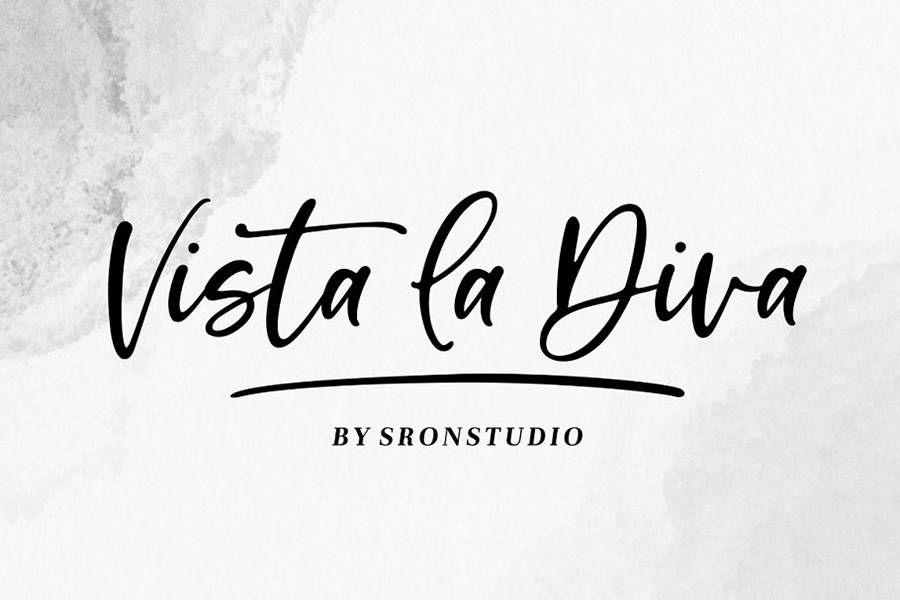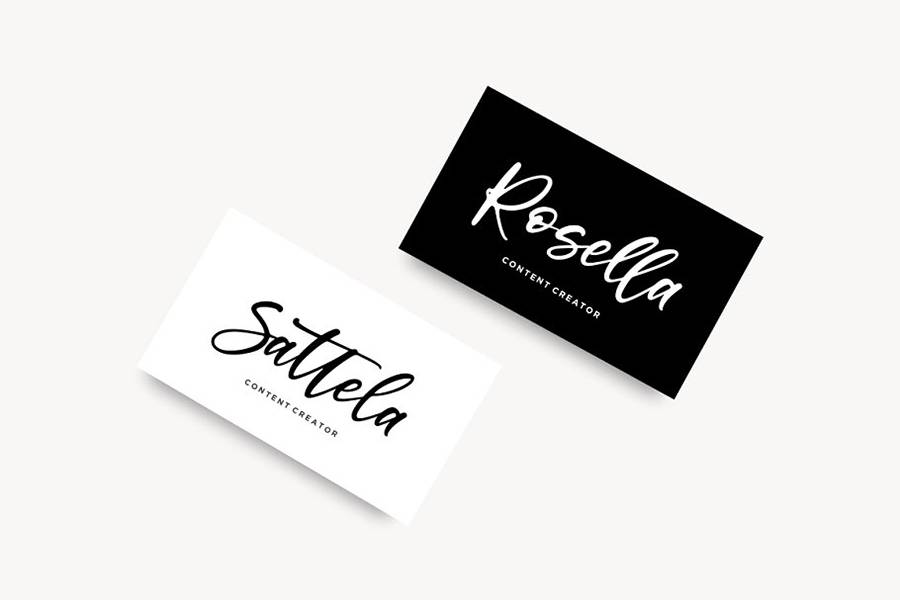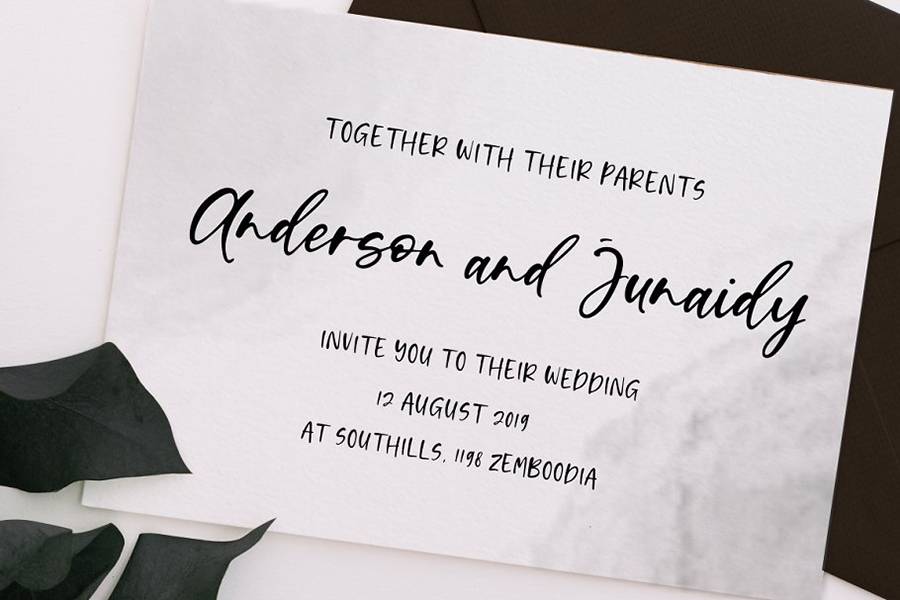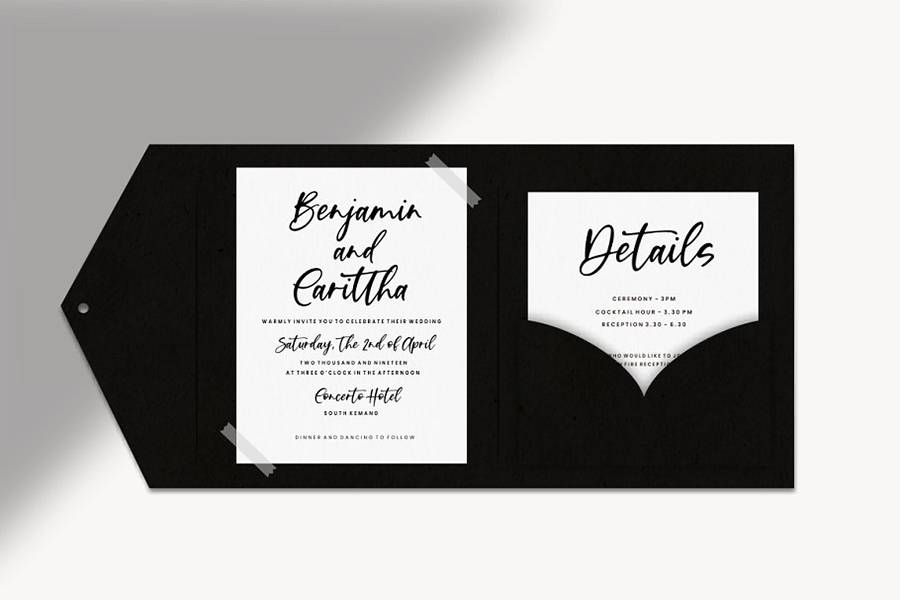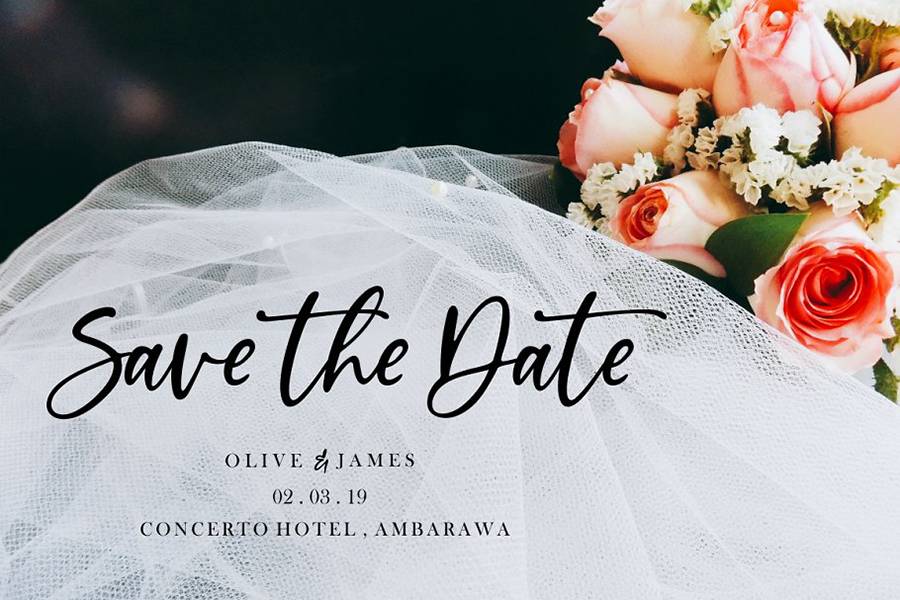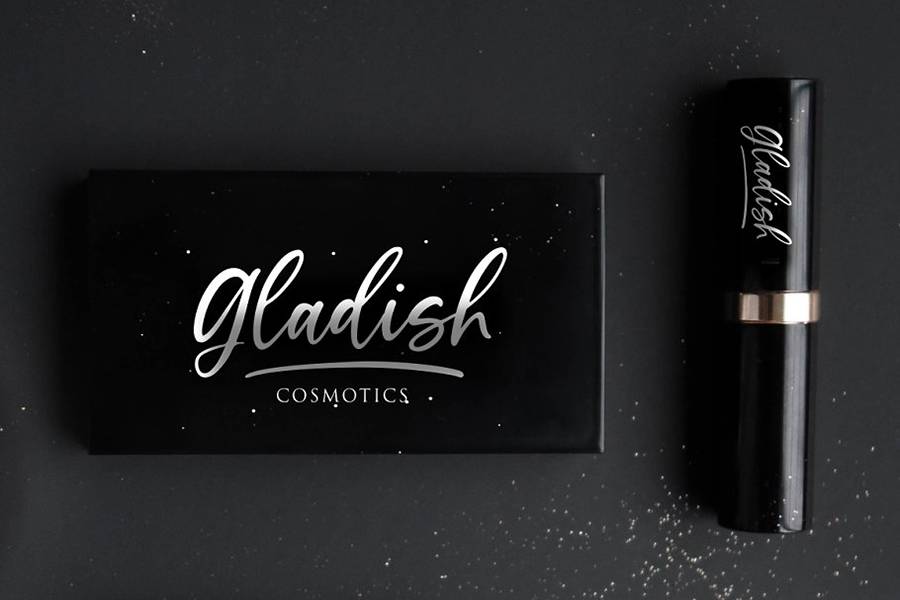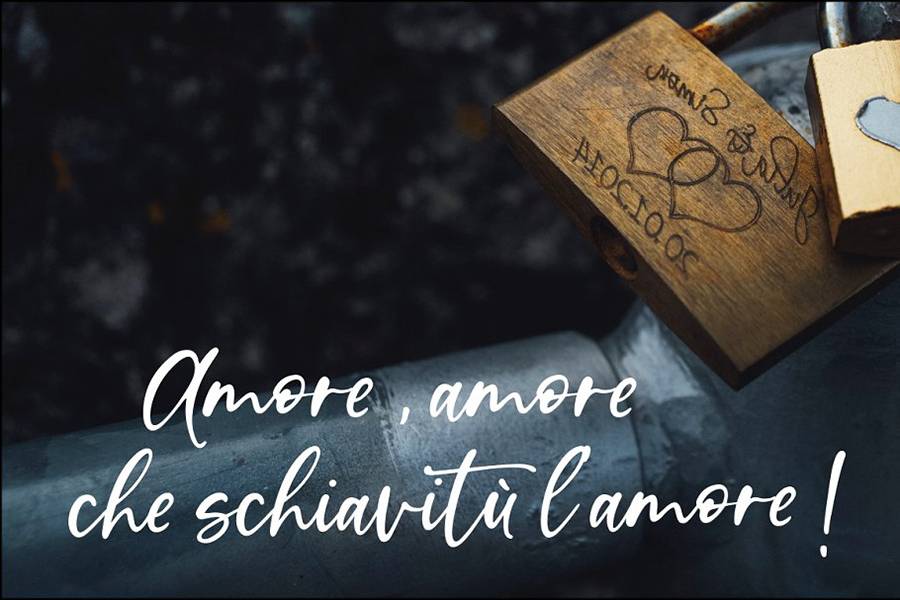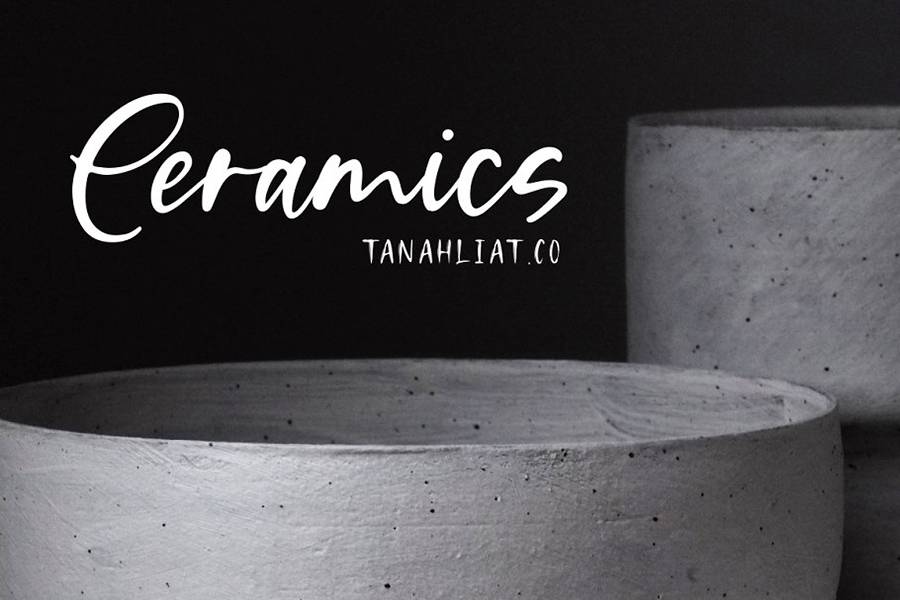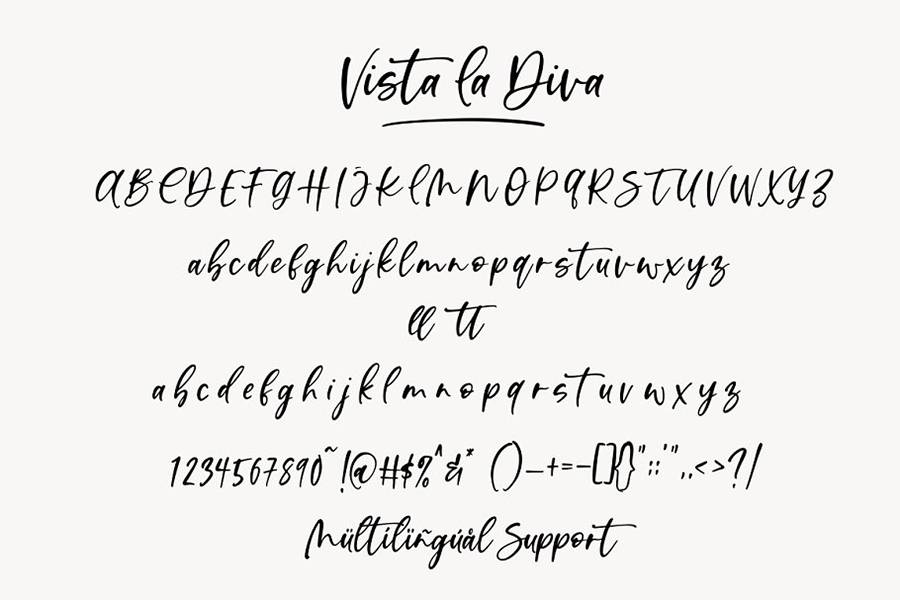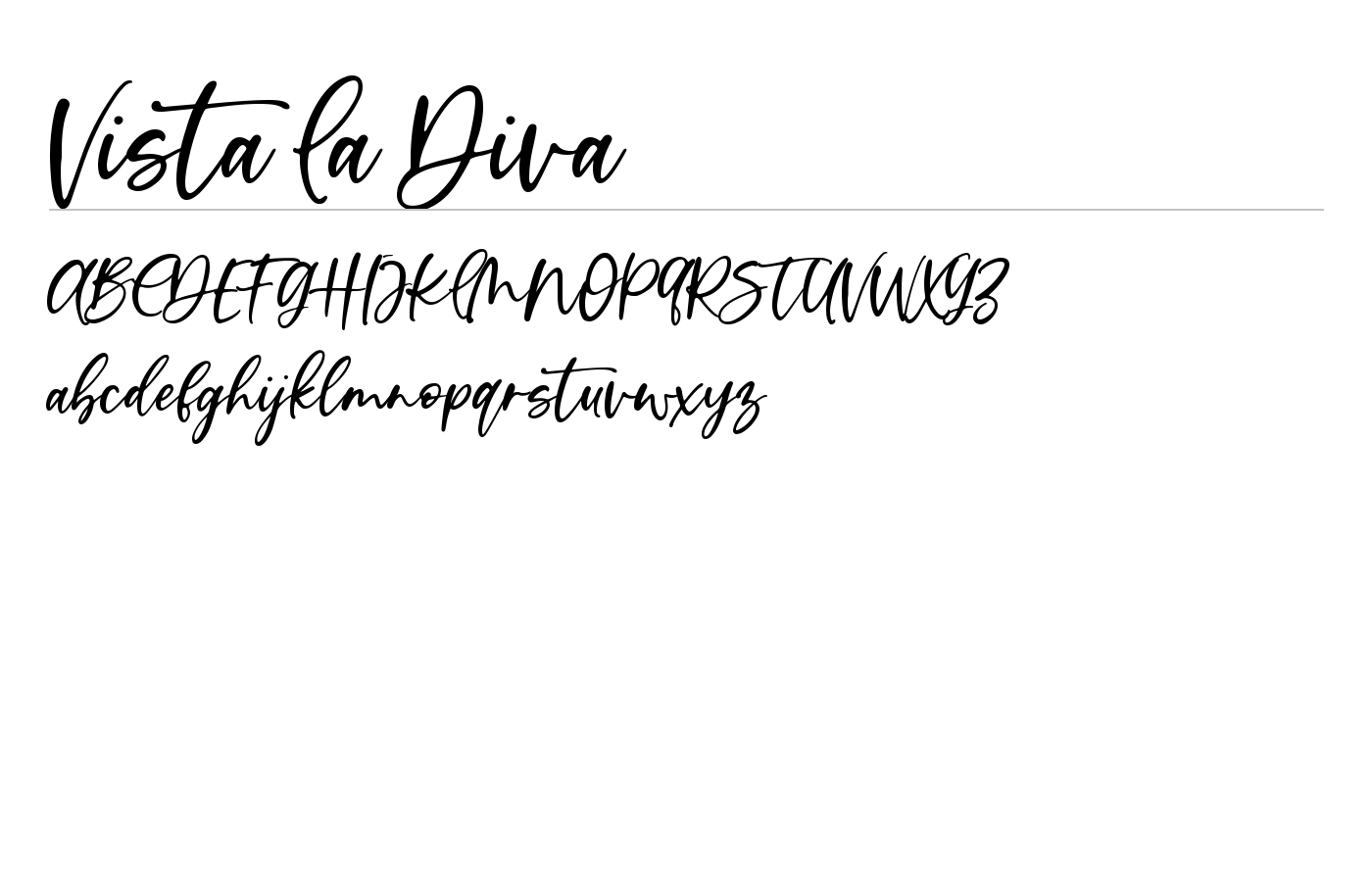
Vista La Diva is an elegant script font that combines smooth, flowing strokes with a hand-lettered, brush-style feel. It has a lively, feminine charm, making it perfect for stylish branding, invitations, and fashion-related projects that want to convey sophistication and personality with a modern touch. This font works beautifully in headlines and logos where a graceful, casual script look is desired.
Vista La Diva Script Font
About Vista La Diva Script Font
| Font family | Vista La Diva Script Font |
| Designer | Muhamad Yusron Billah |